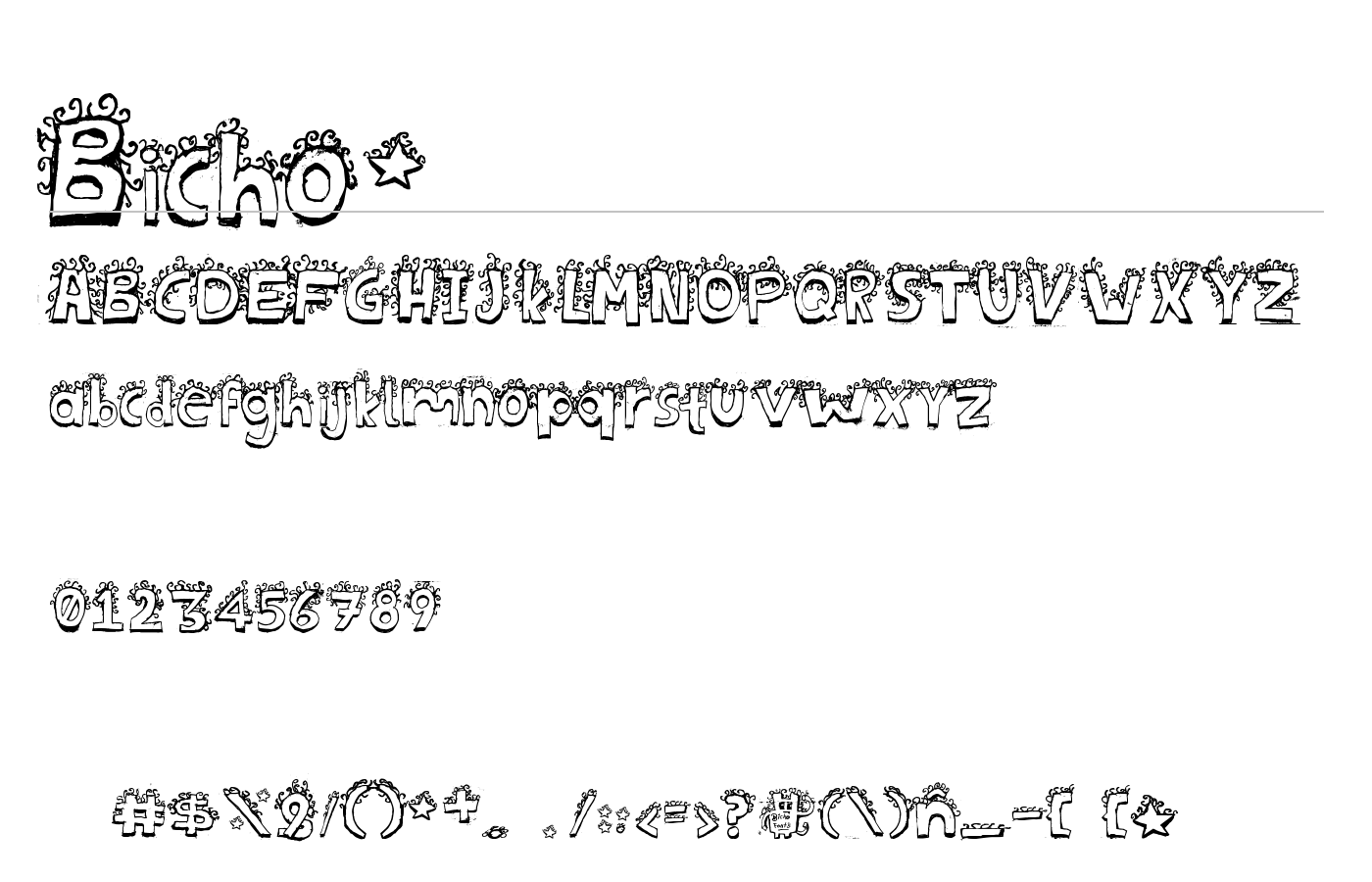
Bicho* is a playful, hand-drawn sans serif font featuring quirky, irregular letterforms adorned with small curly details that give it a whimsical and lively character. It works best for creative, informal designs like children's books, greeting cards, and fun packaging where a lighthearted, artistic feel is desired. Its unique style and uneven strokes make it less suitable for body text but perfect for eye-catching headlines and decorative purposes.
Bicho* Font
About Bicho* Font